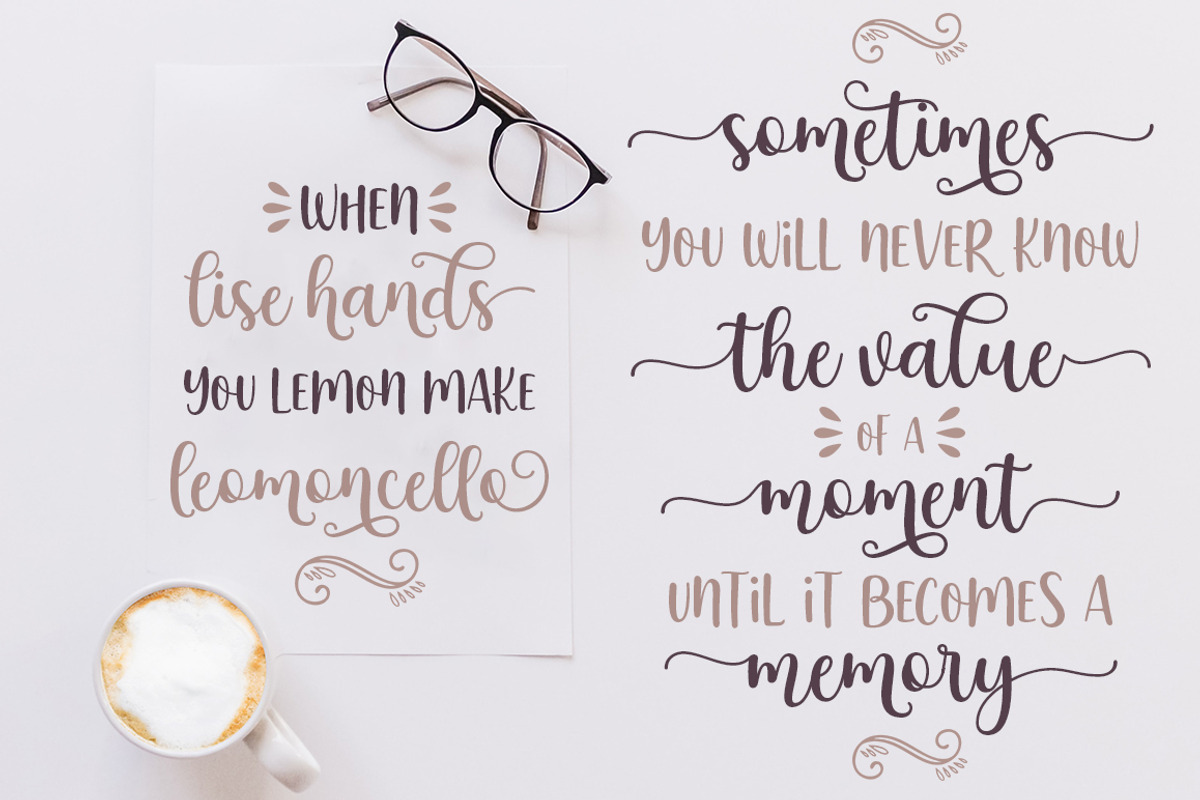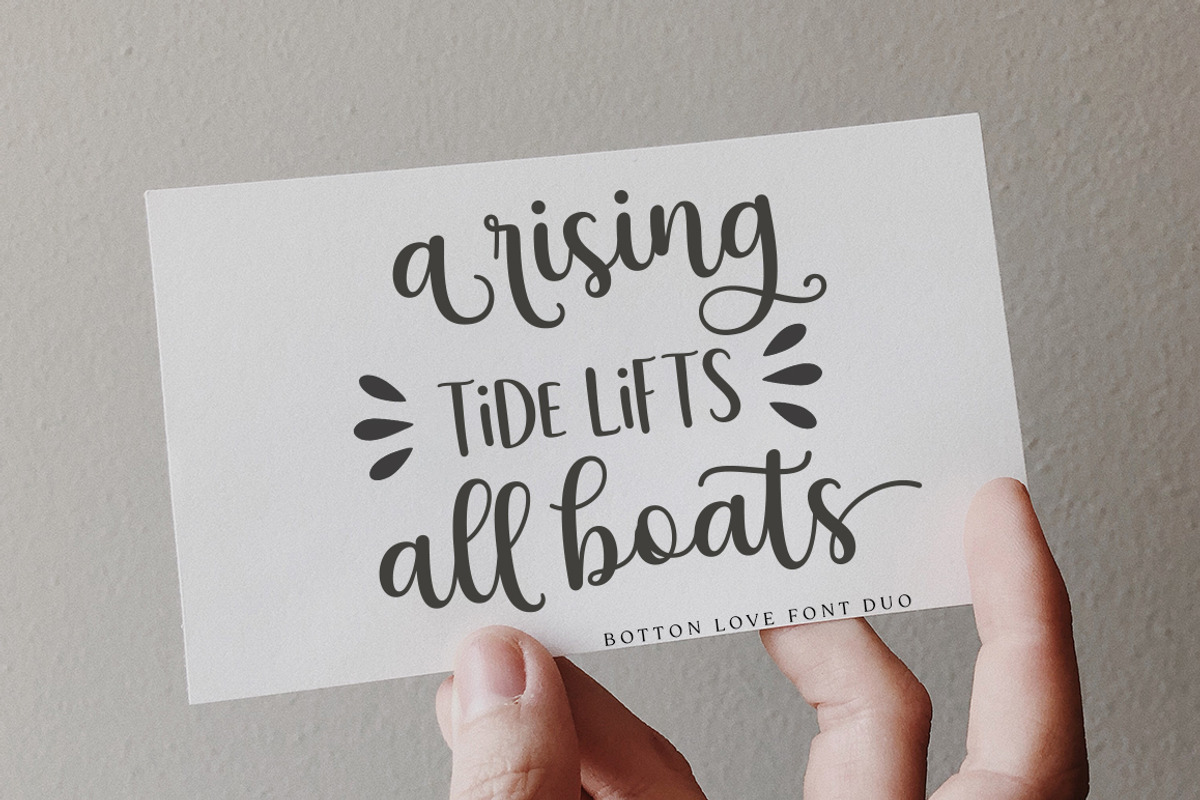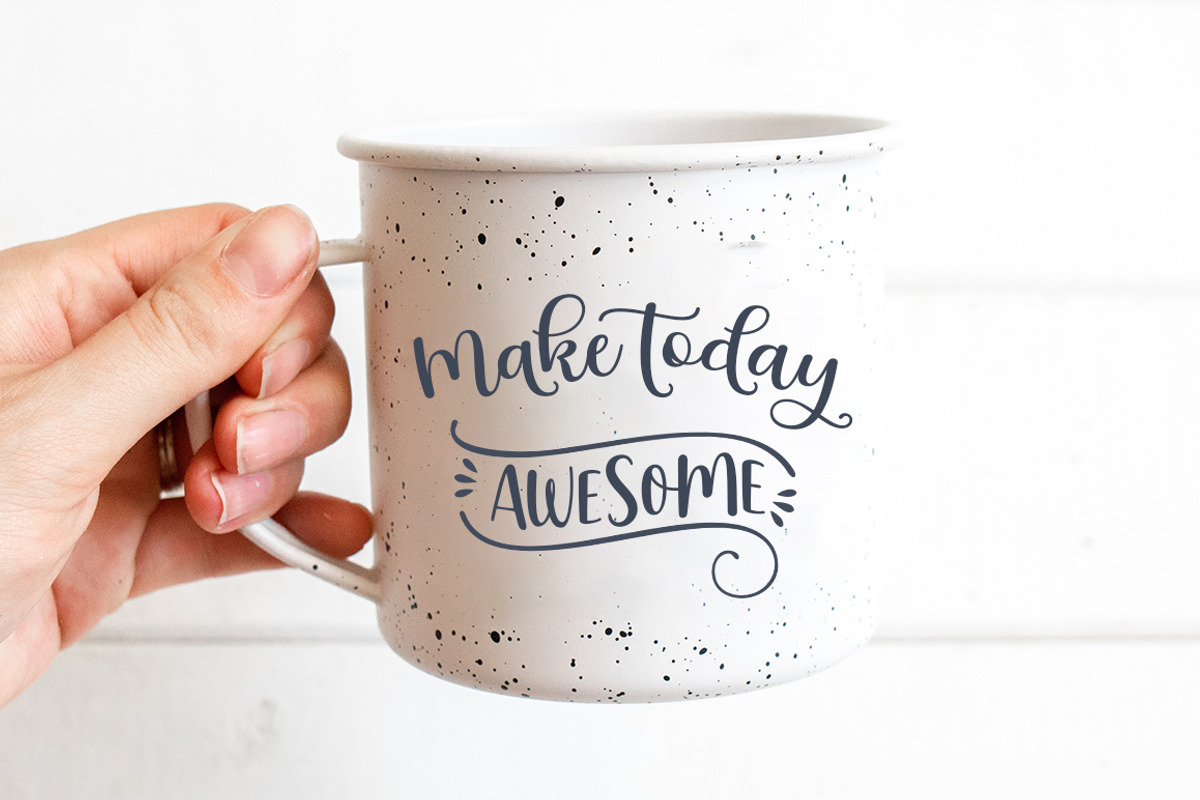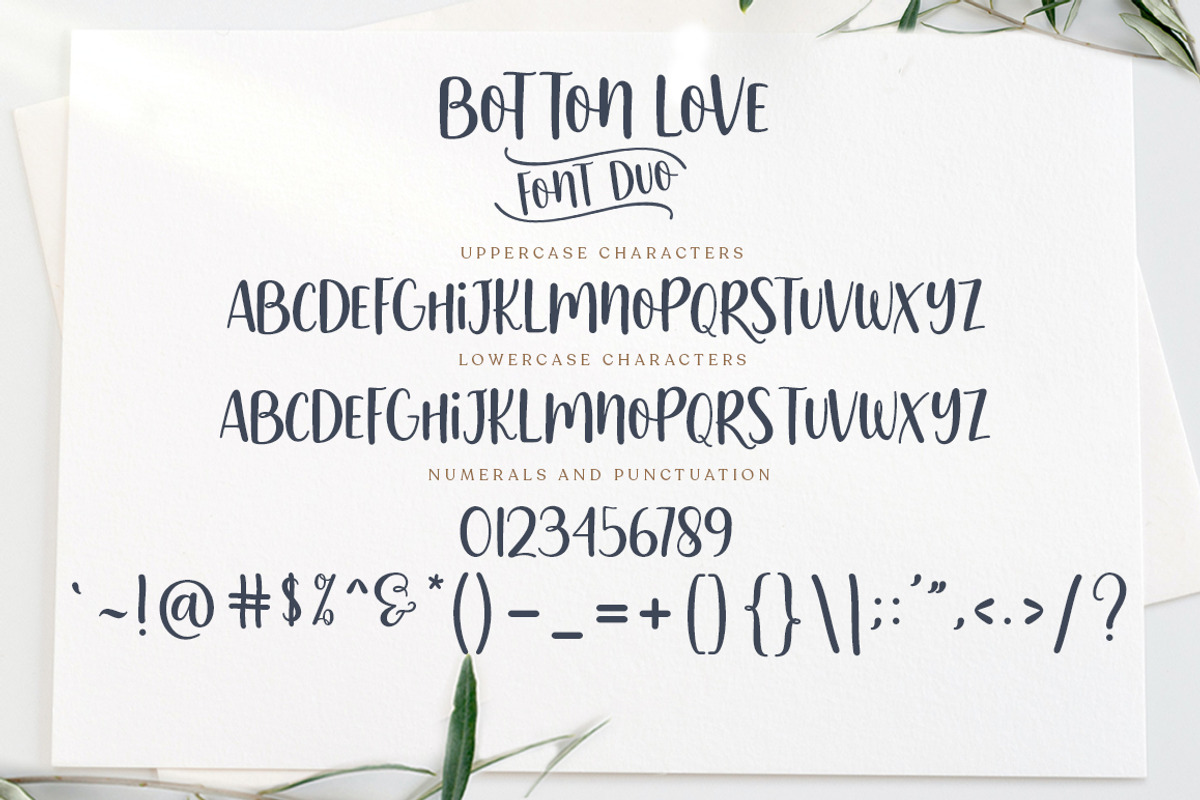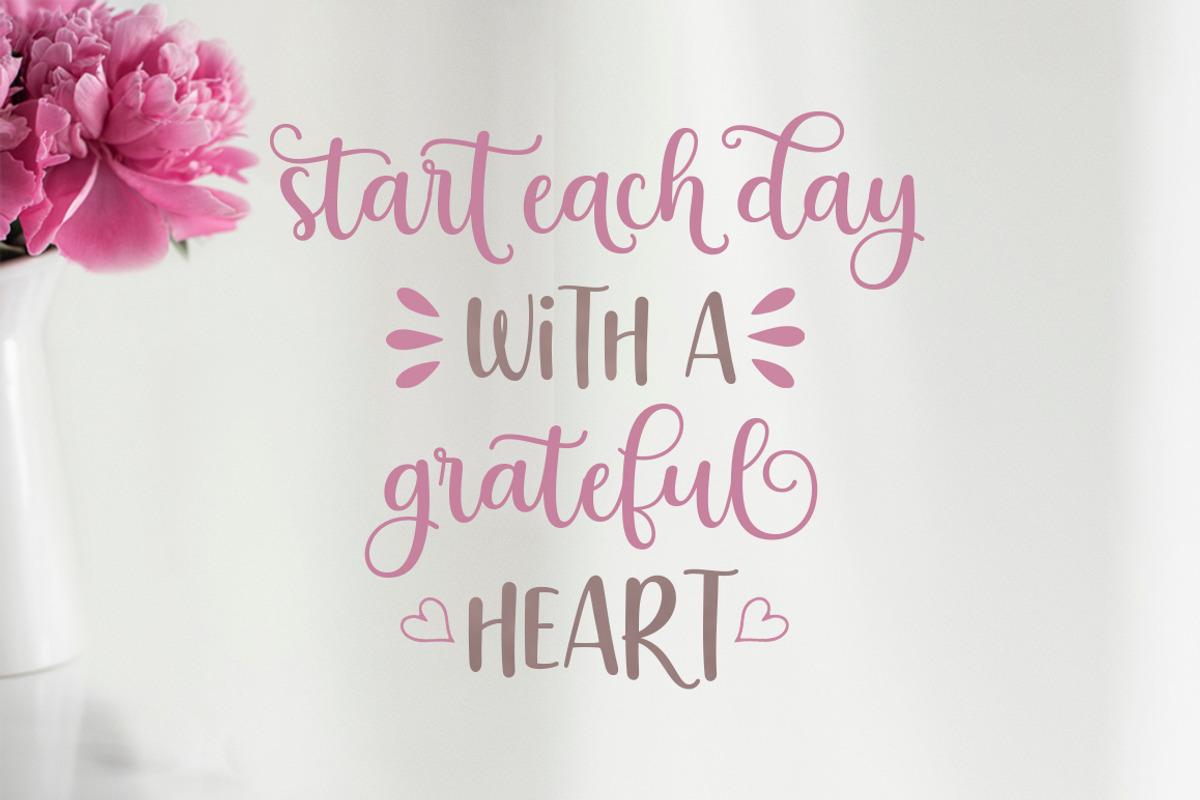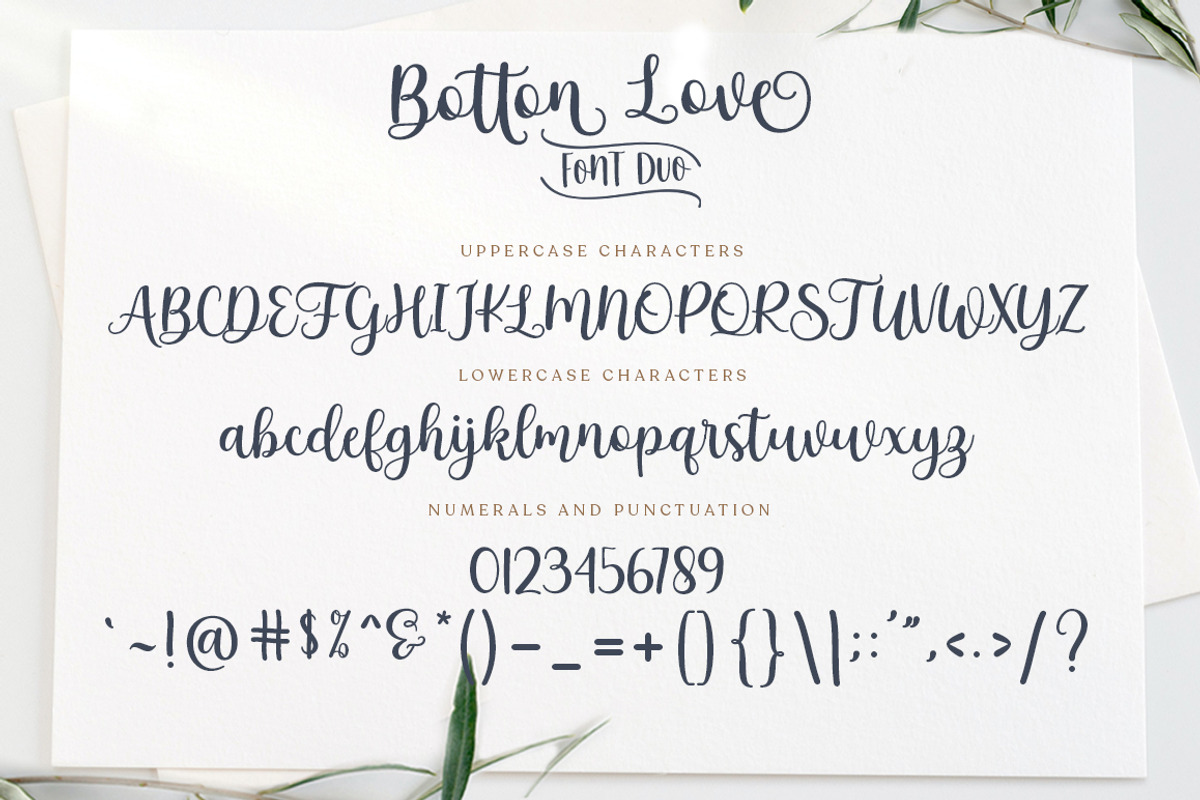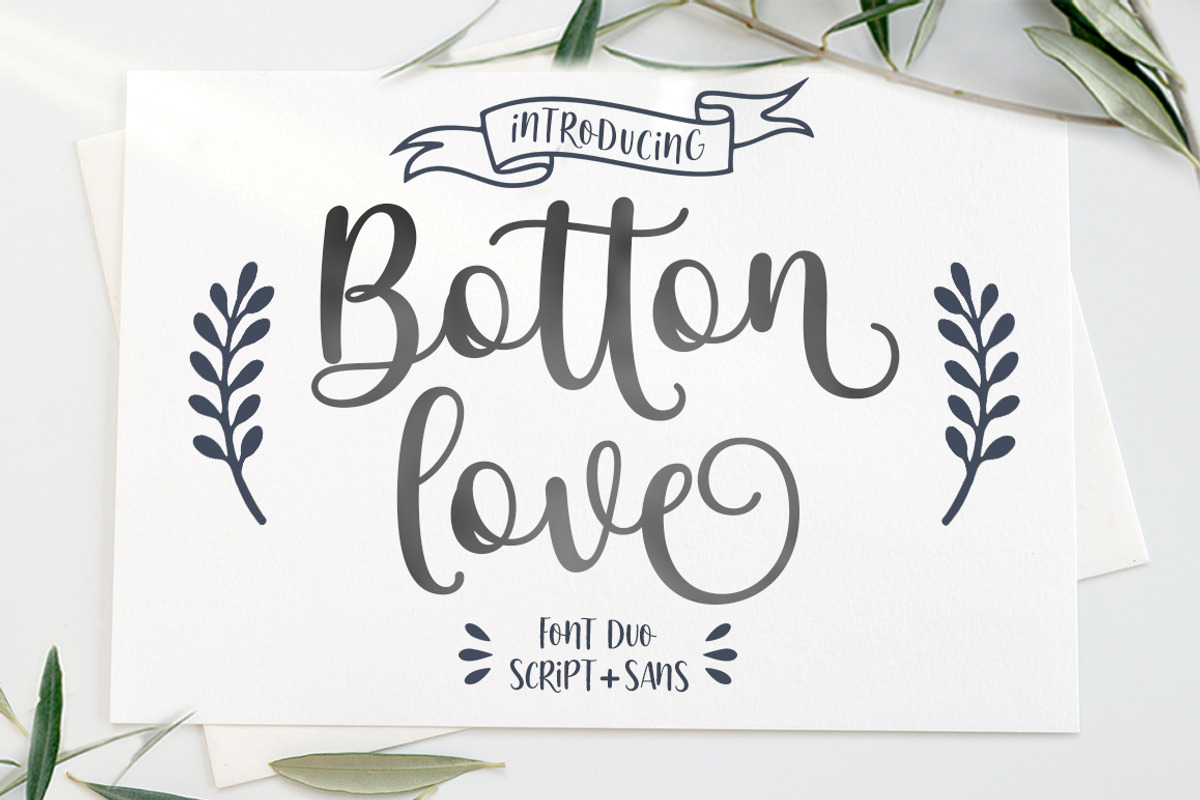
Botton Love Script Font DUO
Botton Love Script Font DUO is a new modern script font with an irregular baseline. Trendy and feminine style. Botton Love Script looks beautiful in wedding invitations, thank you cards, quotes, greeting cards, logos, business cards and more. Perfect for use in inks or watercolors. Includes initial and terminal letters, alternatives and support for multiple languages.